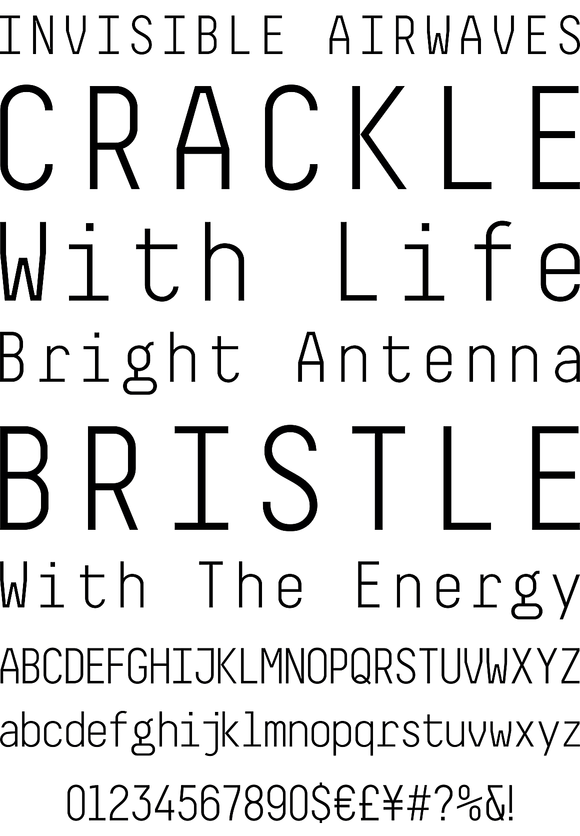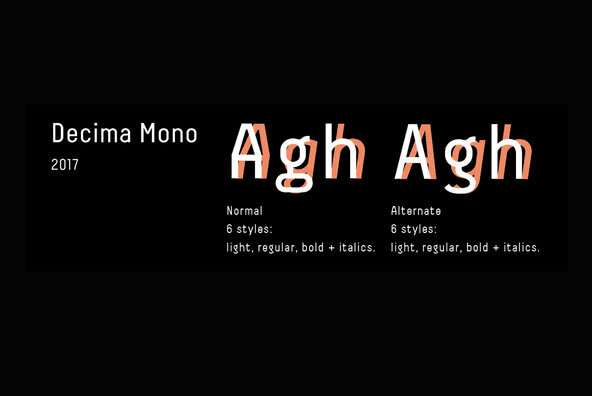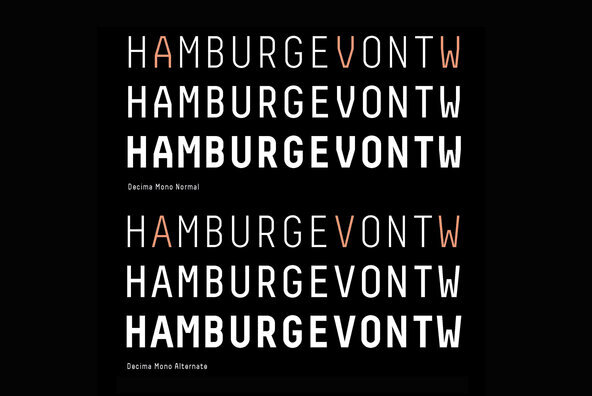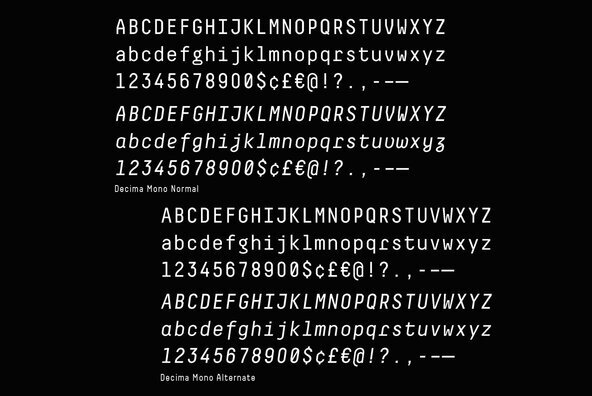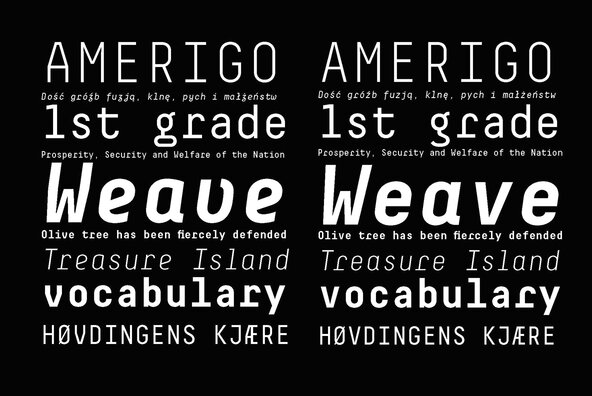
Decima Mono is a subfamily addition to Decima fonts by TipografiaRamis. Decima Mono is a condensed geometric monospaced San Serif, built in six styles.